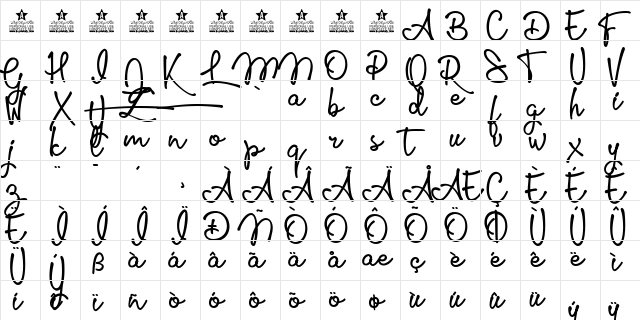
Glamour Girls Personal Use Regular
| Foundry | Billy Argel |
| Designer | Billy Argel |
Design Context for Glamour Girls Personal Use Typeface
Glamour Girls Personal Use is a composed and adaptable typeface that performs quietly and consistently across a wide range of design contexts.